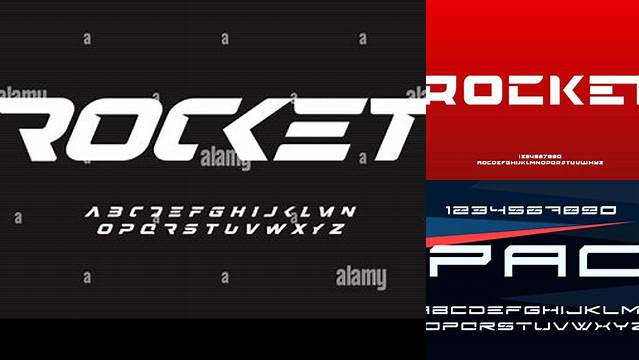
Free Rocket Futuristic Font: Download & Design Guide
Hey guys! Are you ready to blast off into the world of typography? This article is your launchpad, your mission control, your one-stop shop for everything about the rocket futuristic font! I'm gonna break down how to find and snag a rocket futuristic font free download, explore its awesome design potential, and give you the lowdown on how to make your projects look outta this world. So buckle up, buttercups, because we're about to explore the cosmic depths of this amazing font!
Finding Your Rocket-Powered Typography: Free Downloads Galore!
Decoding the Aesthetic: What Makes a Font "Futuristic"?
So, what exactly makes a font scream "futuristic"? Guys, it's all about the visual cues! Rocket futuristic fonts often draw inspiration from a variety of sources, including space exploration, technology, and the overall aesthetic of the future. Think sleek lines, geometric shapes, and a sense of motion and speed. This is not a drill! Many such fonts employ clean, minimalist designs, with a focus on readability and a modern feel. You'll often see fonts with sharp edges, condensed letterforms, and a sense of weightlessness – as if the letters are floating in space. Another common characteristic is the use of technological elements, like circuit board patterns, digital displays, or abstract representations of data streams. These fonts aim to capture the essence of technological innovation and forward-thinking design.
Furthermore, the color and context in which a font is used can also enhance its futuristic appeal. Pairing a rocket futuristic font with a dark background, neon colors, or metallic gradients can create a visually striking and futuristic look. It's about more than just the font itself; it's about the overall design concept and how you integrate the font into your project. Consider using the font for headlines, titles, or key phrases to make a bold statement and grab the viewer's attention. The beauty of a great futuristic font is in its ability to evoke a sense of wonder, excitement, and innovation. Now, how cool is that?
Rocket-Powered Font Selection: Choosing the Right One for Your Project
Choosing the perfect rocket futuristic font is like choosing the right rocket for a mission to Mars. You've gotta consider your mission! First, think about the overall tone and message you want to convey. Is your project about high-tech innovation, space travel, or a general sense of the future? A font with sharp angles and geometric shapes might be perfect for a tech company's logo, while a softer, more rounded font could be better suited for a sci-fi novel cover. Second, take readability into account. While a super-stylish font is awesome, you don't want it to be unreadable. Make sure the font is legible at different sizes and on various backgrounds. Third, consider the context. Where will the font be used? If it's for a website, make sure it's web-safe and renders well on different devices. If it's for print, ensure it has high-resolution and works with your printing process. Finally, test, test, test! Before committing to a rocket futuristic font, try it out in your design. Experiment with different sizes, weights, and colors to see how it looks in your project. This will help you determine if the font is the right fit and if it conveys the message you want.
Rocket Futuristic Font in Action: Creative Applications and Design Inspiration
The versatility of a rocket futuristic font makes it perfect for a wide range of design projects. Think about logos for tech companies or space-themed products. It's perfect for creating a sense of innovation and cutting-edge technology. These fonts are also great for website headlines, creating an eye-catching and modern look. In the world of graphic design, you can use these fonts for movie posters, book covers, and gaming interfaces. They often add a dramatic and engaging flair. Furthermore, consider using them for sci-fi themed presentations, creating an immersive experience. The possibilities are as vast as space itself! Get creative! Don't be afraid to experiment with different colors, sizes, and layouts to achieve the desired effect. Look at other designs for inspiration, and you will be amazed.
Crafting Captivating Logos: Rocket Futuristic Fonts and Brand Identity
When it comes to crafting a captivating logo, a rocket futuristic font can be your secret weapon. Such fonts can convey a sense of innovation, speed, and technological advancement, which can be perfect for tech companies, startups, or brands that want to project a modern image. Consider the overall message of your brand and how the font aligns with it. A logo is the face of your brand, so make it count. If you want to create a dynamic, eye-catching logo, a futuristic font will do the trick. Experiment with different weights and styles. Don't forget color! Using the right colors can enhance the message, creating a memorable and strong brand identity. Consider adding geometric shapes, gradients, or other design elements to complement the font and create a cohesive and professional look. The goal is to create a logo that reflects your brand's personality and values and resonates with your target audience.